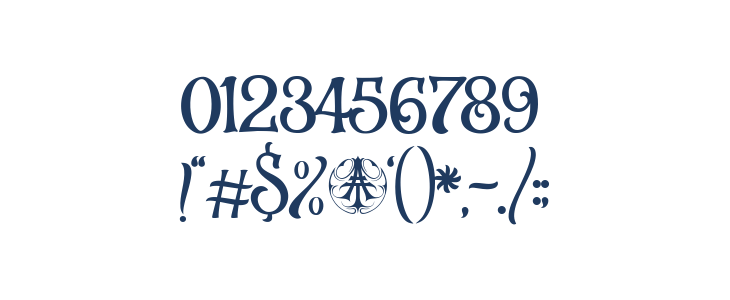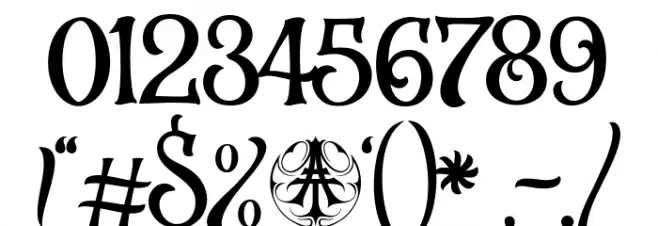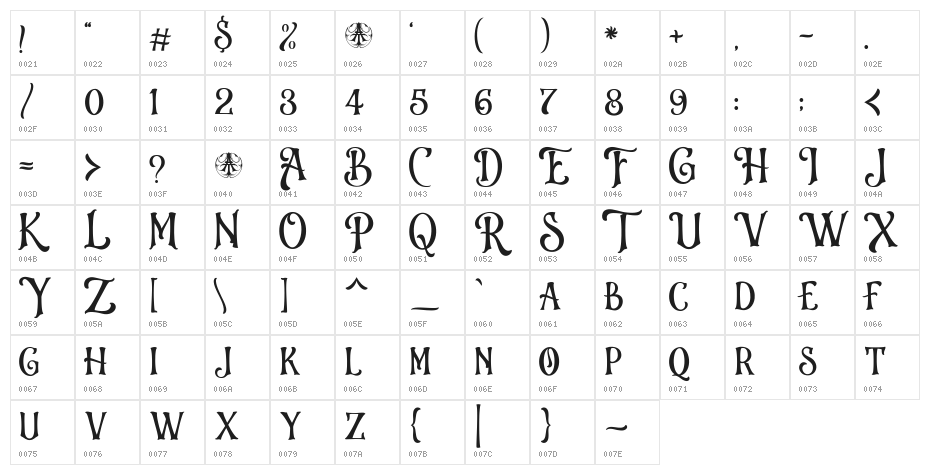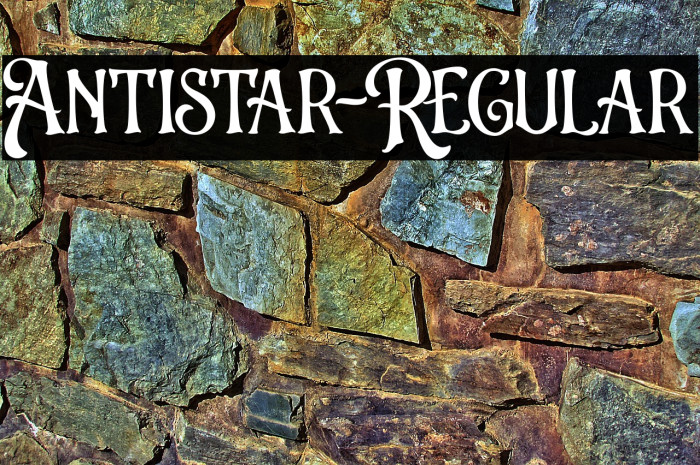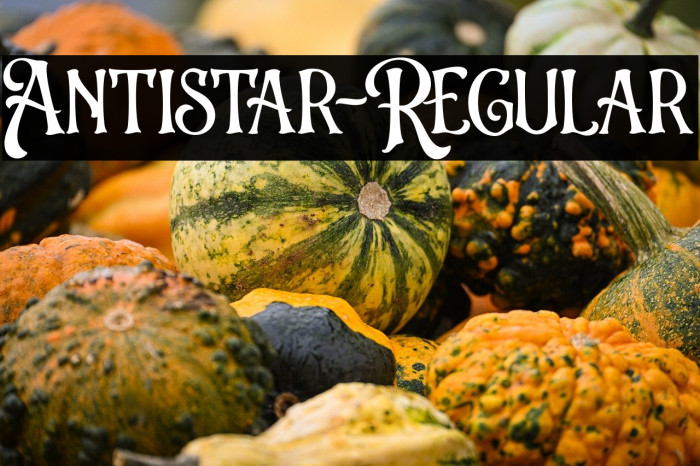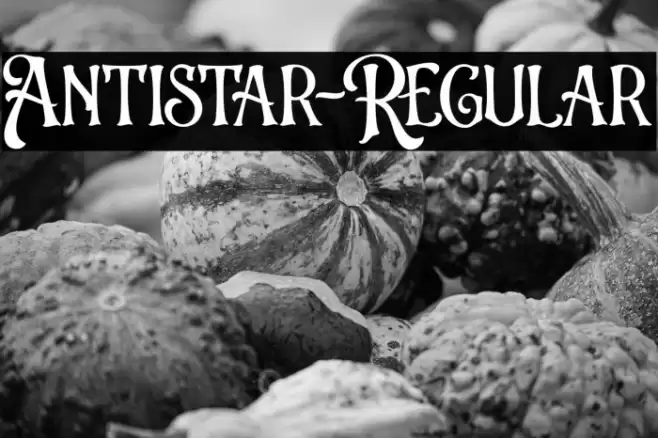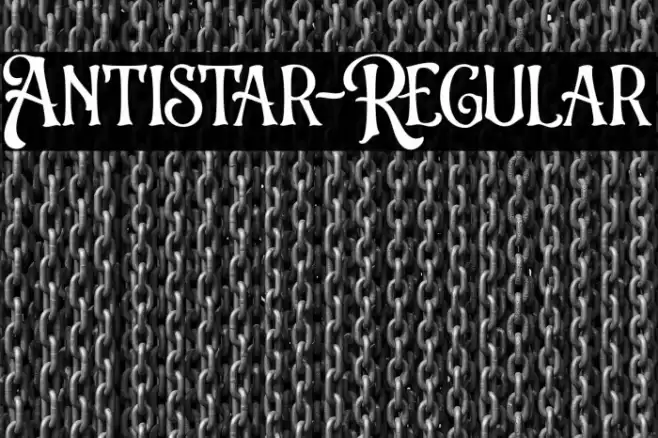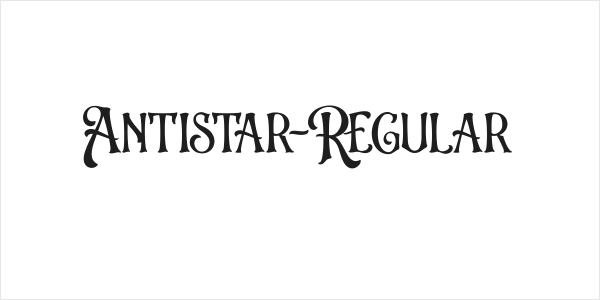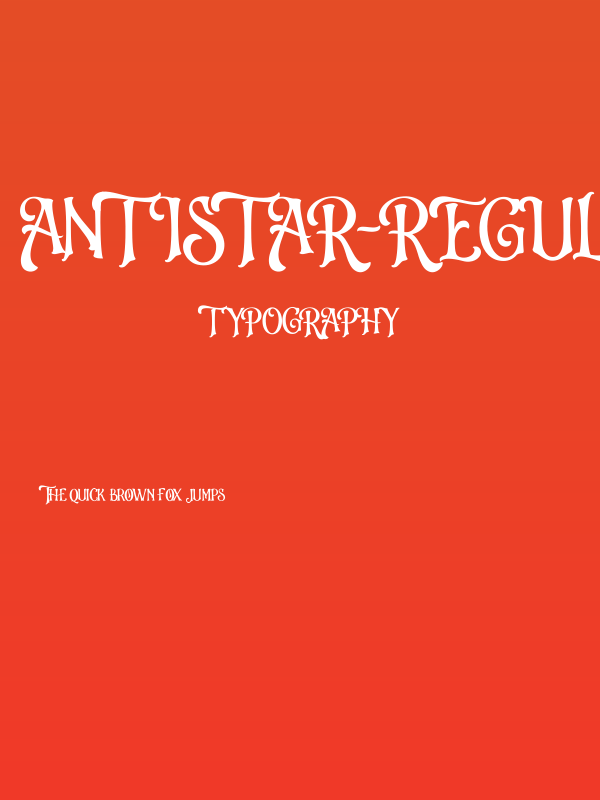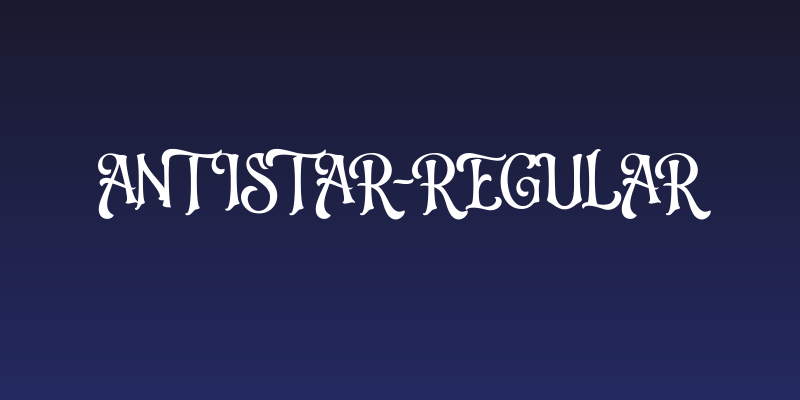
Antistar-Regular Font
Antistar-Regular Description
This font features a bold and decorative style with a whimsical flair. The uppercase letters are characterized by their flowing, exaggerated curves and unique serifs, giving them a playful yet sophisticated appearance. The lowercase letters maintain this decorative style, with consistent stroke thickness and a slightly condensed form. The numerals are equally stylized, with distinctive shapes that complement the overall aesthetic. Special characters are creatively designed, adding to the font's artistic appeal. This font is ideal for projects that require a touch of elegance and creativity.